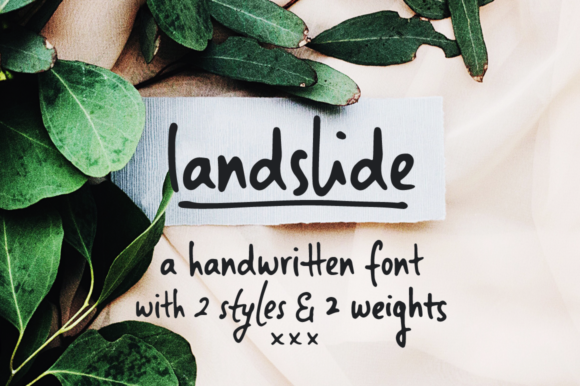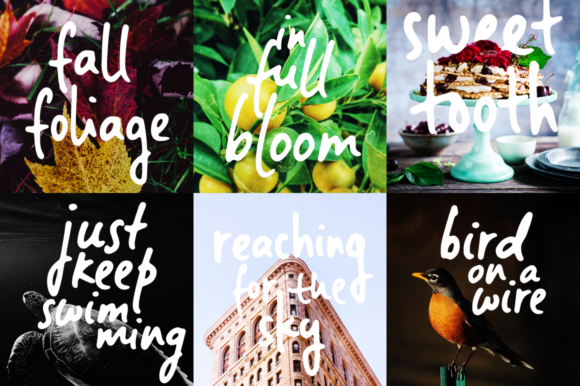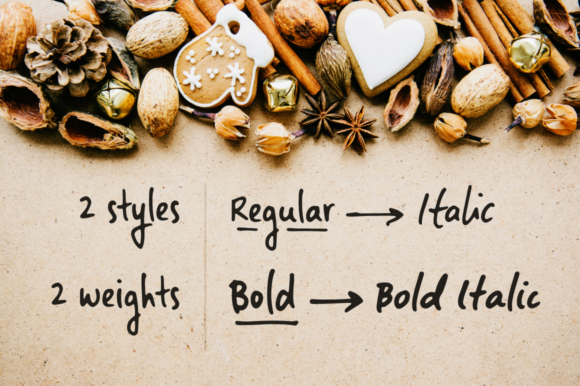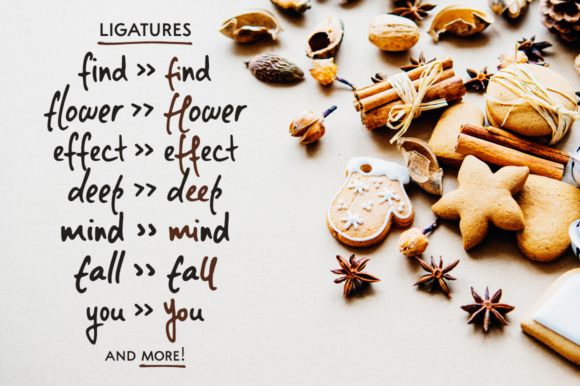
About Landslide Font
Landslide is a unique and delicate handwritten font. It looks beautiful on a variety of designs requiring a personalized style, such as wedding invitations, thank you cards, weddings, greeting cards, logos and so on.